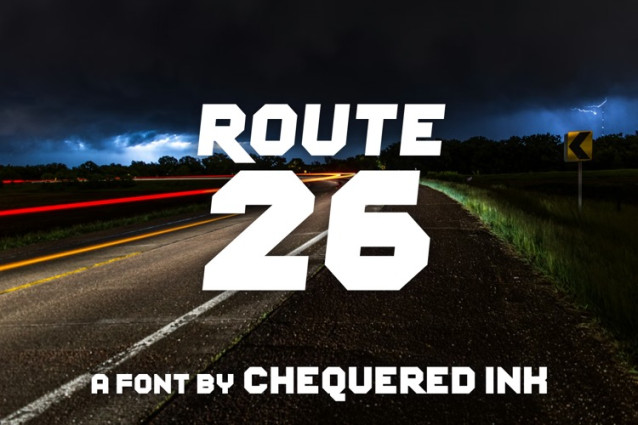
Route 26 Font
Route 26 Font is a modern display typeface designed by Chequered Ink, featuring a distinctive futuristic and italic style that makes it ideal for bold headlines, branding projects, posters, and editorial designs. It includes two stylistic variations—Regular and Straight Regular—with over 200 characters in each, giving designers plenty of flexibility for different creative applications.
The font’s energetic slant and sleek letterforms give it a dynamic, contemporary feel, suitable for projects that need a sense of motion or modern flair. While it’s offered as freeware for personal use, a commercial license is available from the designer for professional projects.